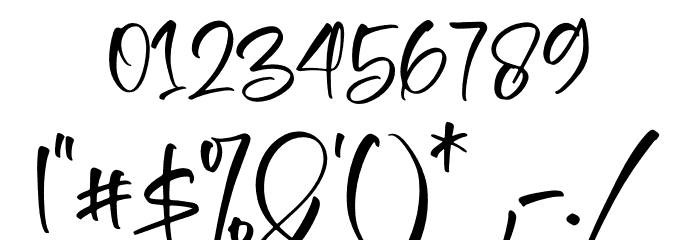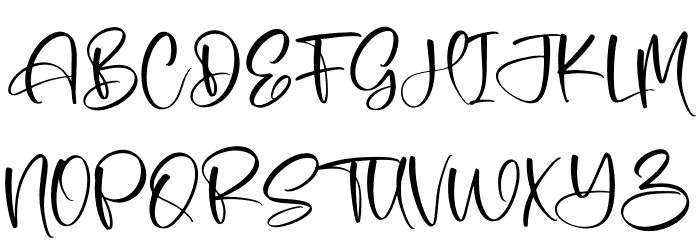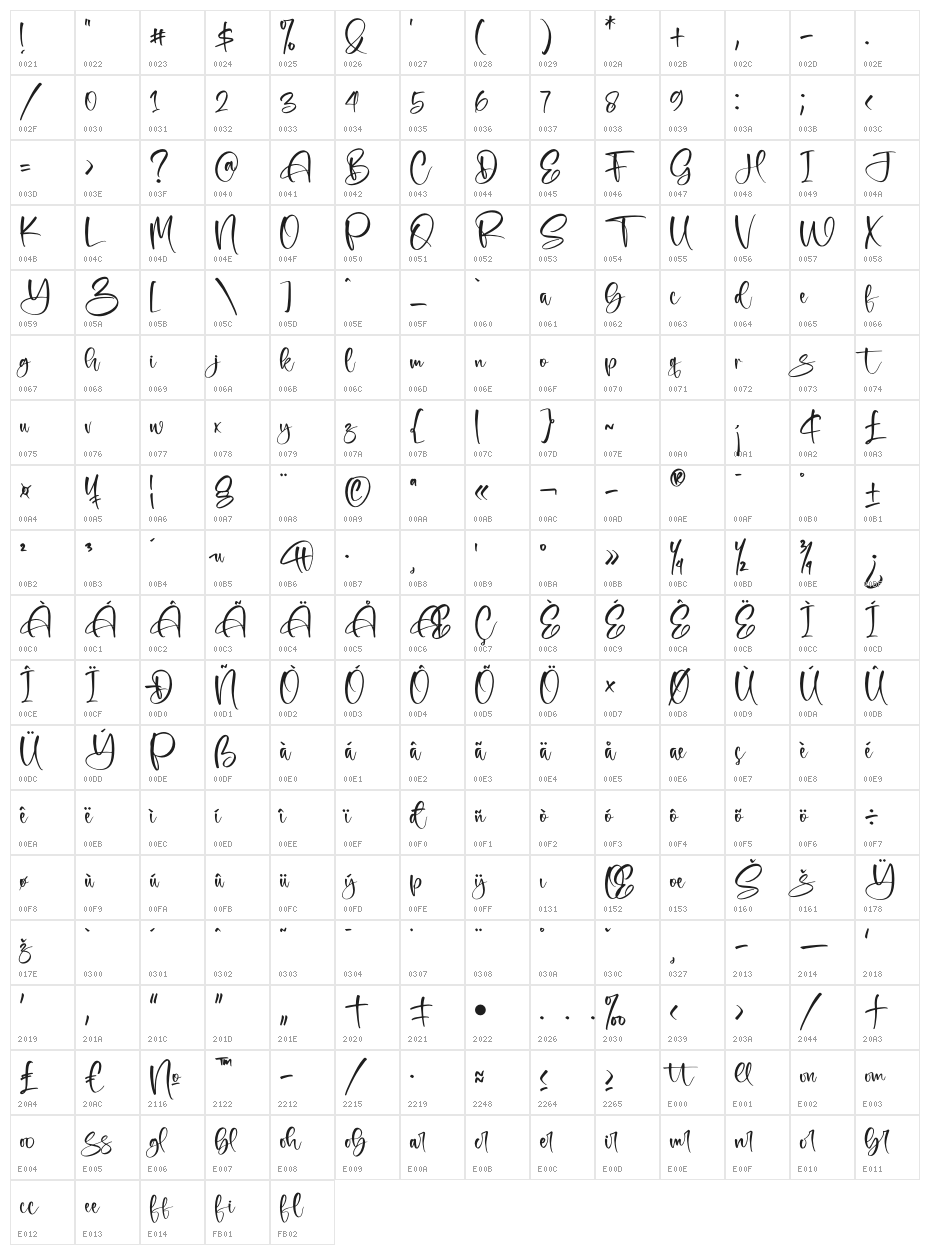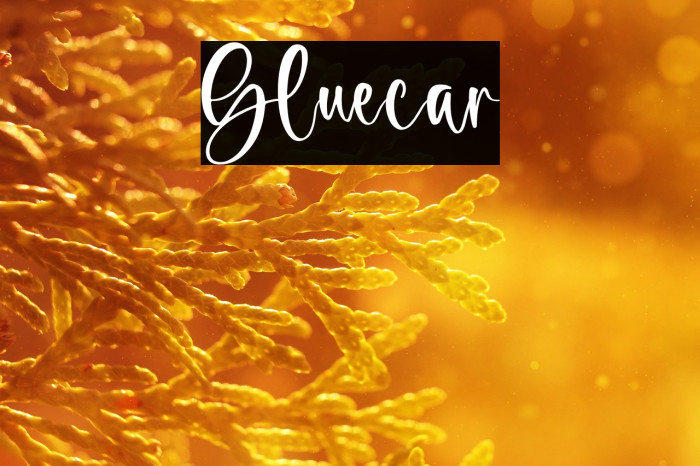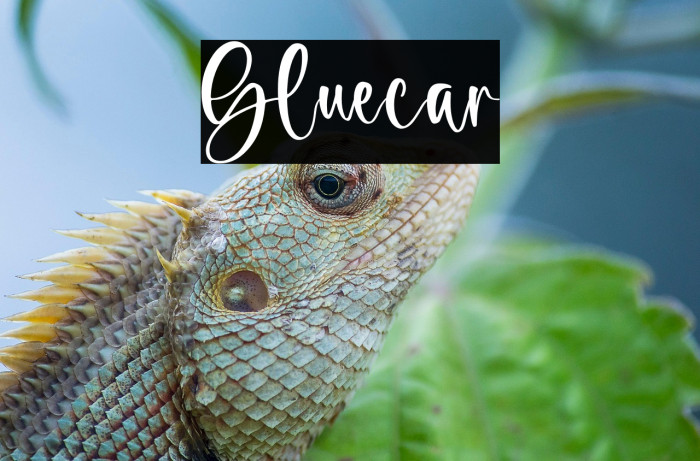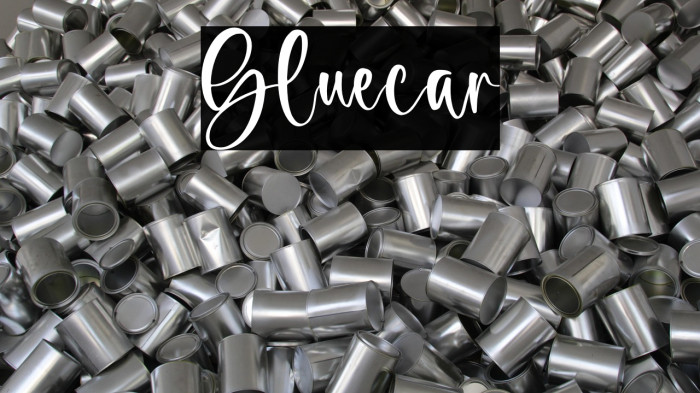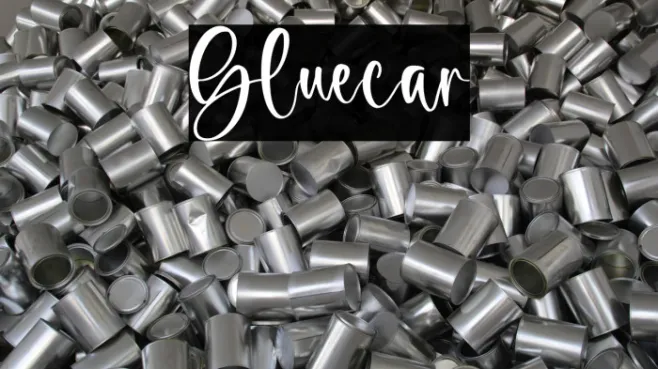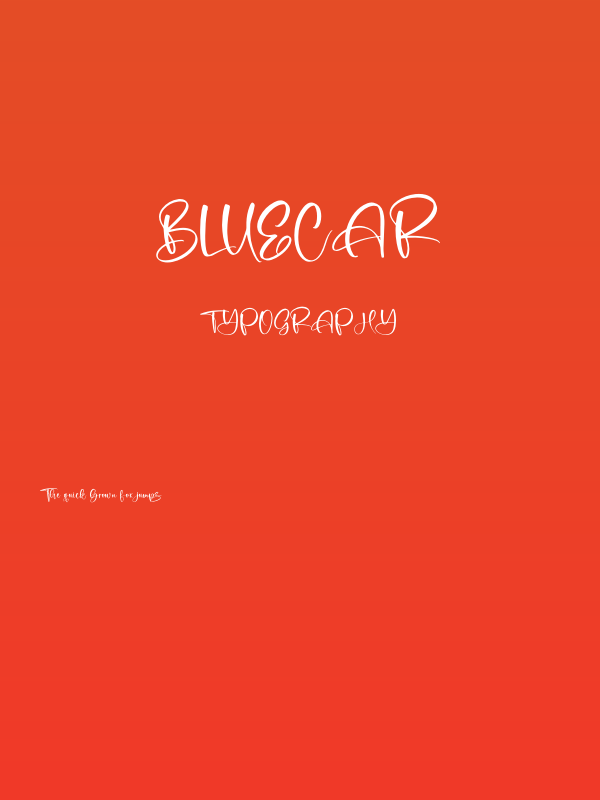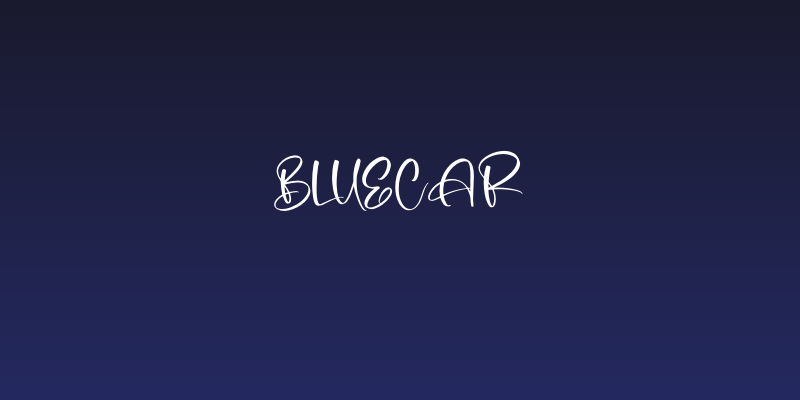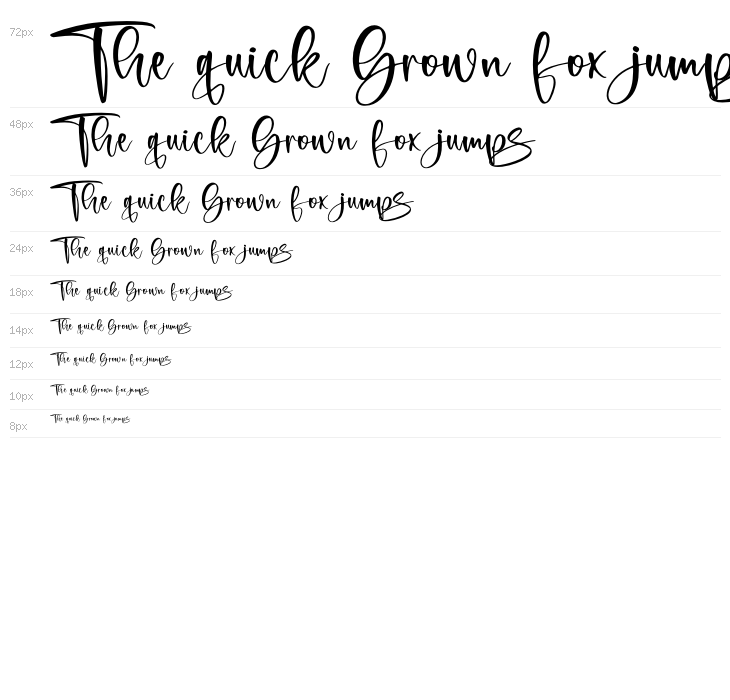
bluecar Font
bluecar Description
This font exudes a lively and dynamic energy with its flowing, cursive style. The characters are crafted with a sense of movement, featuring elegant loops and swirls that give it a handwritten feel. The uppercase letters are bold and expressive, while the lowercase letters maintain a consistent fluidity, making it perfect for creating a personal touch. The numerals and special characters are equally stylized, ensuring a cohesive look across all text elements. This font is ideal for projects that require a personal, artistic flair, such as invitations, greeting cards, or branding materials.